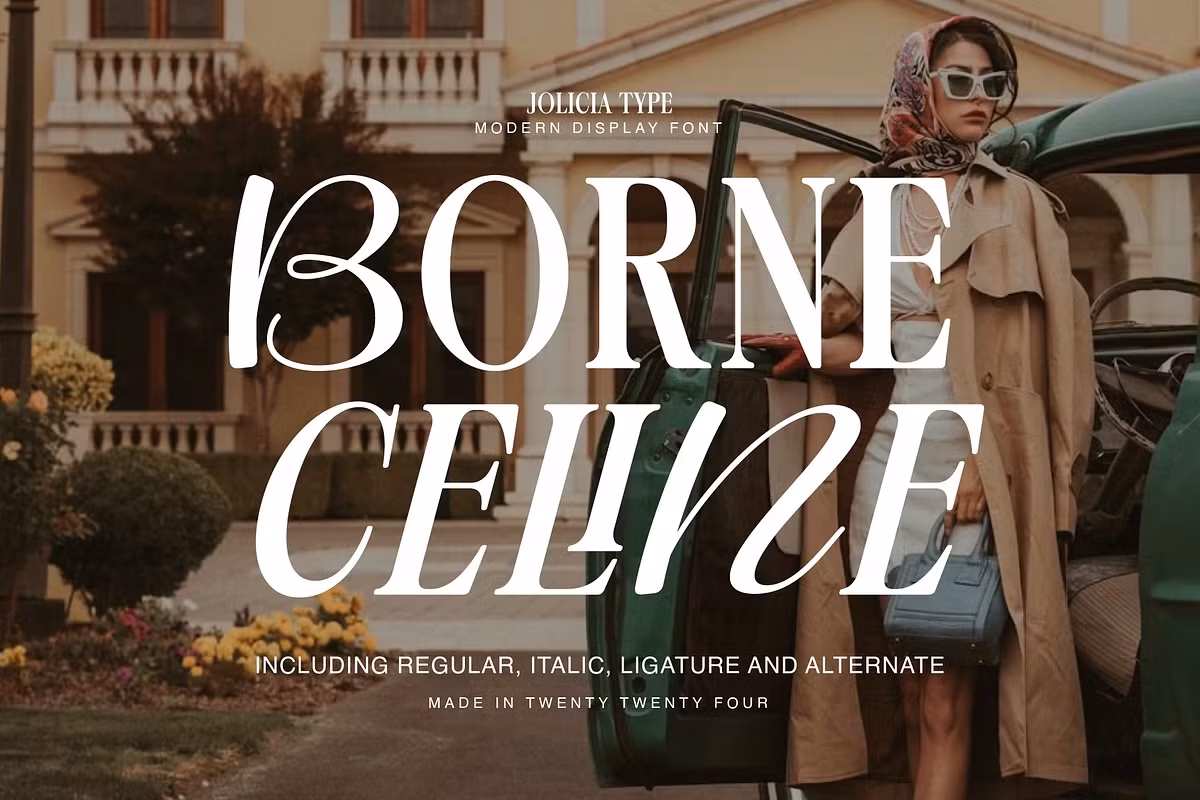
Borne Celine | Modern Display Font Free Download
Please note, to use this font for commercial purposes, you must purchase the full version. Borne Celine is a sleek and sophisticated modern display font that brings a contemporary, stylish edge to any design. With its clean lines and elegant letterforms, this font is perfect for branding, logos, headlines, posters, and other creative projects. Whether you're creating a chic fashion brand or a high-end promotional material, Borne Celine adds a polished and modern flair to your work. Test it out and enjoy free download access for personal use. Experience the refined beauty of Borne Celine | Modern Display Font Free Download before purchasing the commercial license. Add a touch of modern elegance to your designs with Borne Celine.